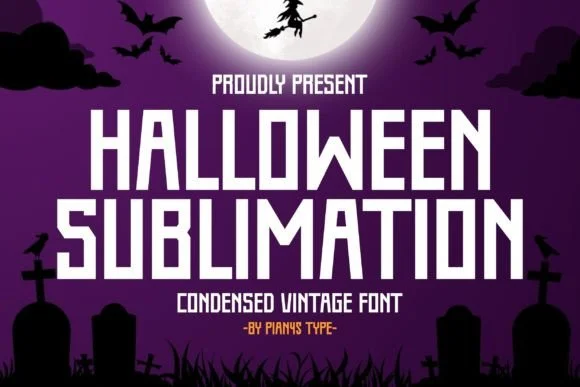
Halloween Sublimation Font
This transformative font is perfect for Halloween sublimation printing, custom Halloween apparel, personalized spooky merchandise, Halloween t-shirt designs, custom Halloween mugs, sublimation Halloween decorations, personalized Halloween gifts, custom spooky products, Halloween sublimation crafts, and professionally printed Halloween messaging materials.
Halloween Sublimation Font is exciting because it combines the supernatural transformation magic of Halloween with the technical precision of sublimation printing through its expertly crafted letterforms that are specifically designed to achieve perfect color saturation and crisp detail transfer in sublimation processes. The font features precisely engineered characters with sublimation-optimized proportions and transfer-ready details that ensure every Halloween design maintains its spooky charm and supernatural appeal when heat-pressed onto fabrics, ceramics, and other sublimation-compatible materials, incorporating clean flourishes and transfer-friendly elements that create typography as technically excellent and professionally reliable as the sublimation process itself. Each letter showcases the perfect balance between artistic Halloween appeal and technical printing requirements that makes sublimation font design so specialized, with optimized curves and transfer-ready accents that transform ordinary Halloween messaging into professional-quality products that maintain their supernatural charm and visual impact through the complete sublimation transformation process.
The Halloween Sublimation Font family includes print-optimized variations: Regular, Bold, Light, Transfer, and Professional versions. The collection features special sublimation elements including transfer-ready accents, print-optimized flourishes, heat-press details, and sublimation-friendly ornaments. Additional components include print-ready borders, transfer frames, sublimation decorations, and professionally optimized ornamental designs that enhance the font's Halloween sublimation appeal and create cohesive printable Halloween themes.
Sublimation crafters and custom Halloween product creators will find Halloween Sublimation Font to be an invaluable resource for creating professionally printed Halloween communications that maintain their supernatural charm and visual impact throughout the entire sublimation printing process. This technically crafted font transforms ordinary Halloween messaging into sublimation-ready expressions that resonate with customers seeking high-quality, personalized Halloween products that combine professional printing standards with authentic Halloween spirit and supernatural appeal.
The typeface includes comprehensive character support with sublimation-optimized styling that maintains excellent printability while conveying the spooky charm and Halloween atmosphere of custom printed celebrations. The font's professionally optimized design ensures perfect transfer results across both amateur crafting applications and commercial sublimation Halloween productions.
Perfect for custom Halloween products, sublimation crafting, personalized Halloween gifts, and professionally printed seasonal merchandise, this font delivers technically excellent visual impact that communicates printing precision, professional quality, and the supernatural charm that makes Halloween sublimation products such popular and memorable custom creations for Halloween enthusiasts.